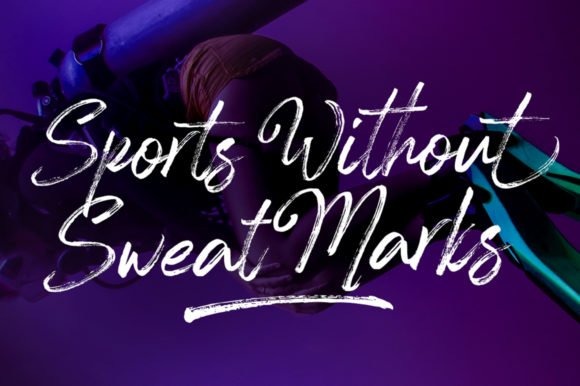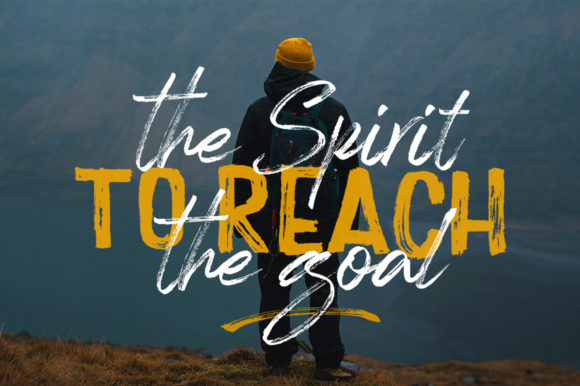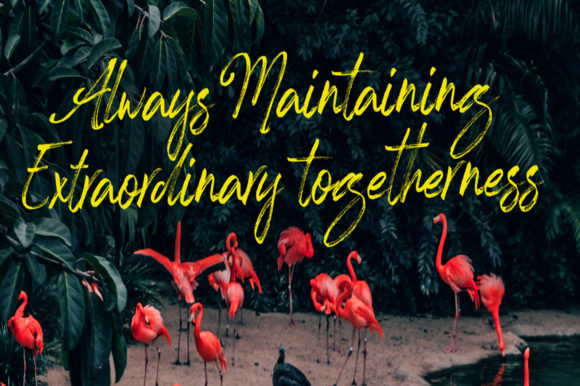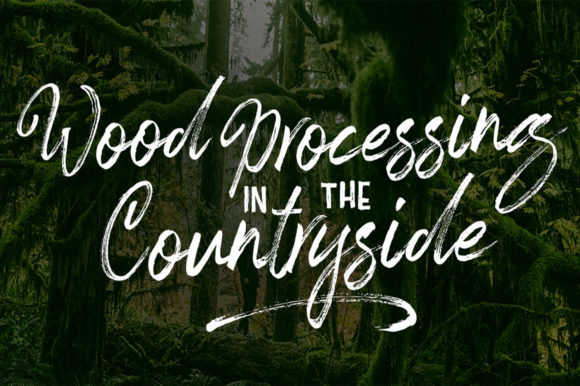
Introducing Clock Bird Font: The Perfect Blend of Casual and Quirky
Are you tired of using the same old fonts for your design projects? Look no further than Clock Bird Font, a casual, fun handwritten font that’s sure to add a touch of personality to your work. Created by using a brush pen, Clock Bird is a clean and quirky font that’s perfect for logos, branding, social media, and crafty DIY projects.
The Story Behind Clock Bird Font
Clock Bird Font is a unique and creative font that’s been carefully crafted to bring a sense of playfulness and whimsy to your designs. The font’s creator used a brush pen to develop the font, giving it a distinctive, hand-drawn feel that’s perfect for designers and crafters who want to add a personal touch to their work.
Key Features of Clock Bird Font
- Casual and Fun: Clock Bird Font is the perfect choice for designers who want to add a touch of personality to their work. The font’s casual, handwritten style is sure to make your designs stand out.
- Clean and Quirky: Clock Bird Font has a clean and quirky feel that’s perfect for a wide range of design projects, from logos and branding to social media and DIY crafts.
- Handwritten Style: The font’s handwritten style gives it a unique, personal feel that’s perfect for designers who want to add a touch of warmth and personality to their work.
- Brush Pen Created: Clock Bird Font was created using a brush pen, giving it a distinctive, hand-drawn feel that’s perfect for designers and crafters who want to add a touch of authenticity to their work.
Uses for Clock Bird Font
Clock Bird Font is a versatile font that can be used for a wide range of design projects, including:
- Logos and Branding: Clock Bird Font is perfect for creating unique and memorable logos and branding materials.
- Social Media: The font’s casual, handwritten style is perfect for social media graphics, including Facebook posts, Instagram stories, and Twitter headers.
- Crafty DIY Projects: Clock Bird Font is perfect for crafty DIY projects, such as handmade cards, gift tags, and scrapbooking.
- Stationery and Invitations: The font’s clean and quirky feel makes it perfect for stationery and invitations, including wedding invitations, birthday cards, and thank-you notes.
Tips for Using Clock Bird Font
Here are a few tips for getting the most out of Clock Bird Font:
- Experiment with Different Sizes: Clock Bird Font looks great in a variety of sizes, from small and delicate to large and bold.
- Pair with Other Fonts: Clock Bird Font pairs well with other fonts, including serif and sans-serif fonts.
- Use for Headings and Body Text: Clock Bird Font is perfect for both headings and body text, making it a versatile choice for a wide range of design projects.
Clock Bird Font is a unique and creative font that’s perfect for designers and crafters who want to add a touch of personality to their work. With its casual, fun handwritten style and clean and quirky feel, Clock Bird Font is sure to become a favorite in your design arsenal. So why wait? Download Clock Bird Font today and start creating your own unique and memorable designs!